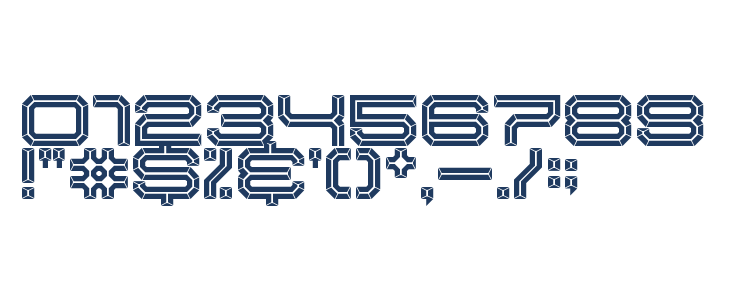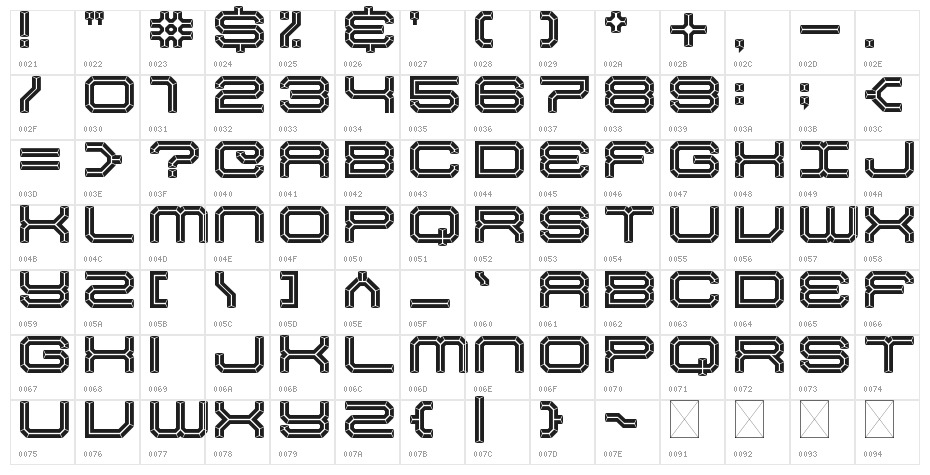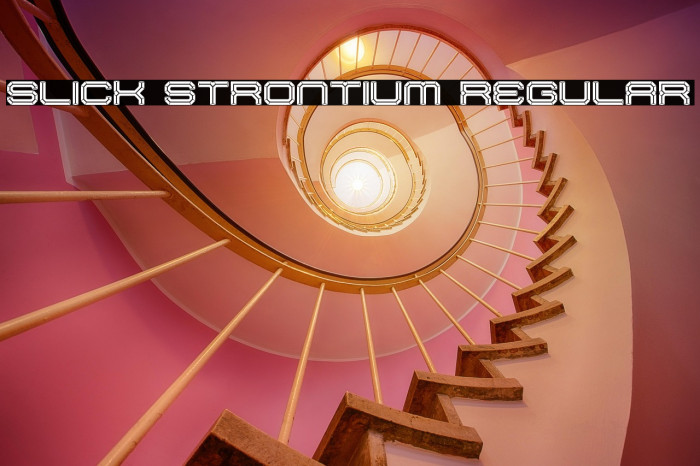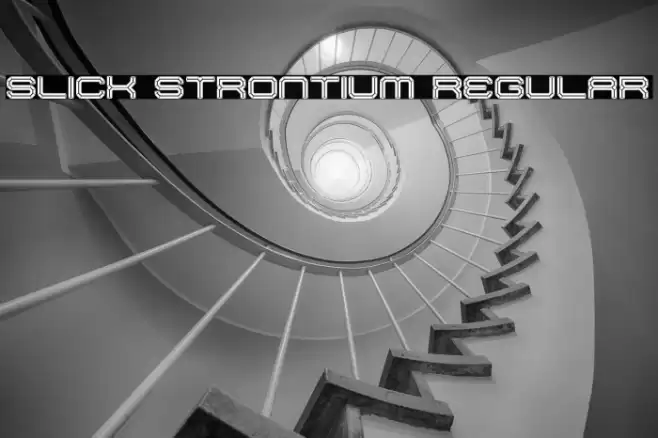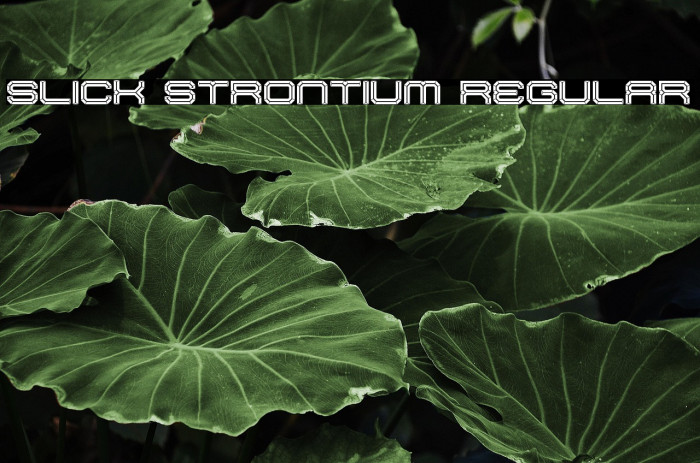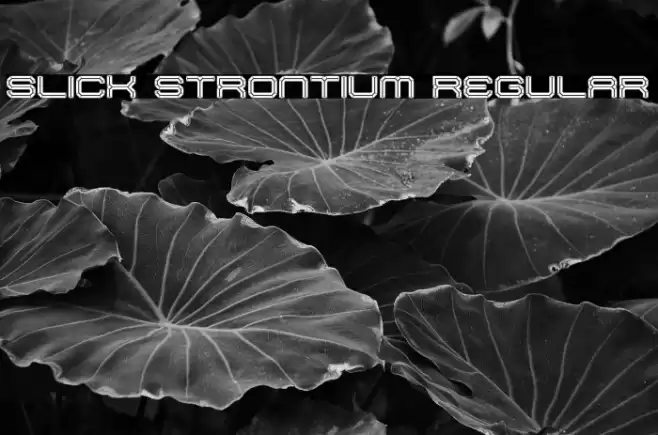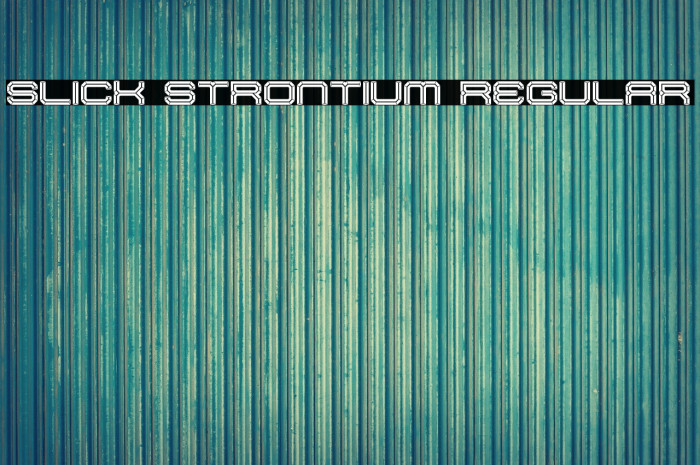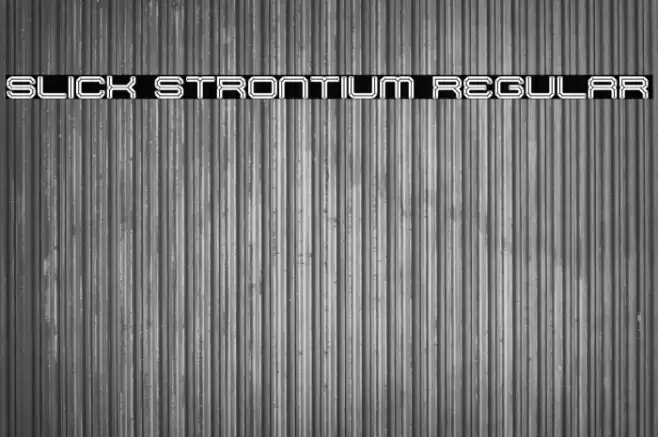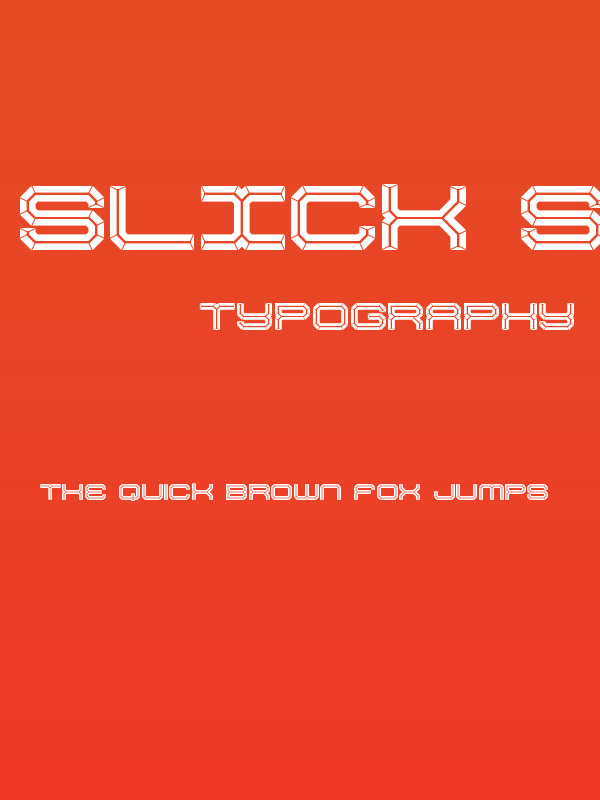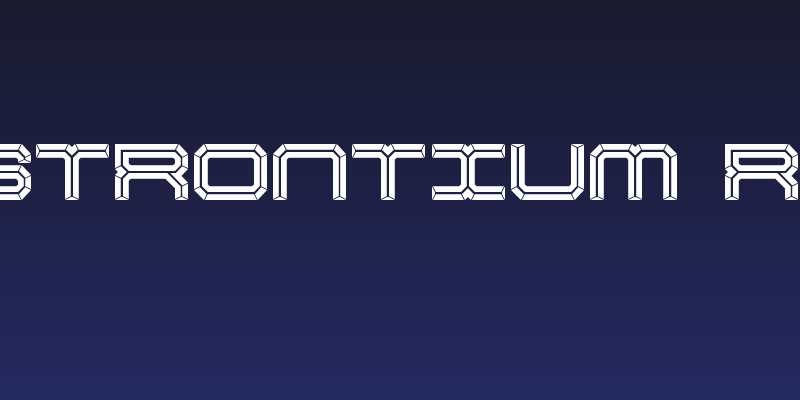
Slick Strontium Regular Font
Slick Strontium Regular Description
This font features a futuristic and geometric design with a distinct, bold outline. Each character is crafted with sharp angles and a consistent line thickness, creating a high-tech and industrial feel. The uppercase and lowercase letters maintain a uniform style, while the numerals and special characters complement the overall aesthetic. The font's structure is both modern and decorative, making it stand out in any design project.
| Proposed Projects | Ideal for technology-themed designs, sci-fi posters, video game titles, and branding for tech companies. |